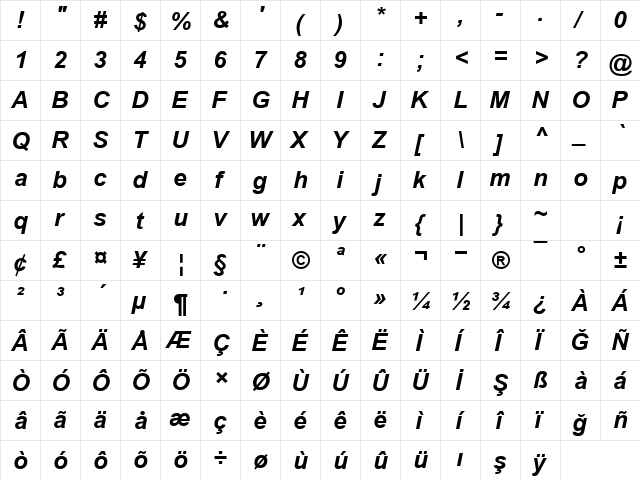
Arial Digiscream Bold Italic Font Preview
Design Context for Arial Digiscream Typeface
Arial Digiscream takes a measured approach to typography — its balanced proportions and neutral character make it a reliable workhorse for both digital and print work. Its italic angle brings a sense of urgency and motion to the letterforms. The heavy weight commands attention and anchors typographic hierarchies.
Pro Tip: Use Arial Digiscream for emphasis, pull quotes, and subheadings where its slanted energy can add rhythm to the layout.